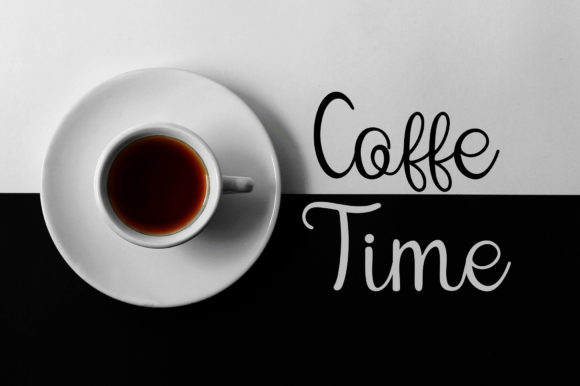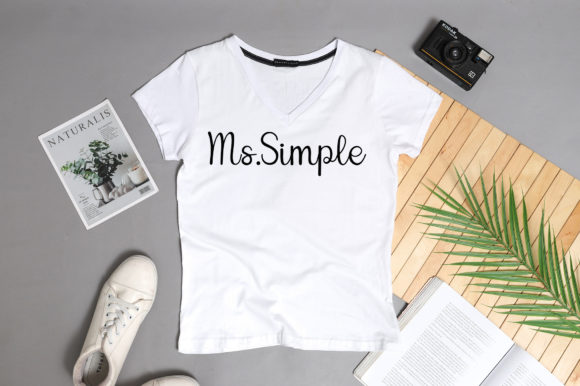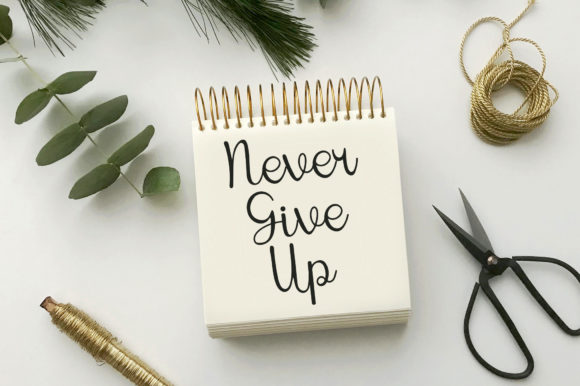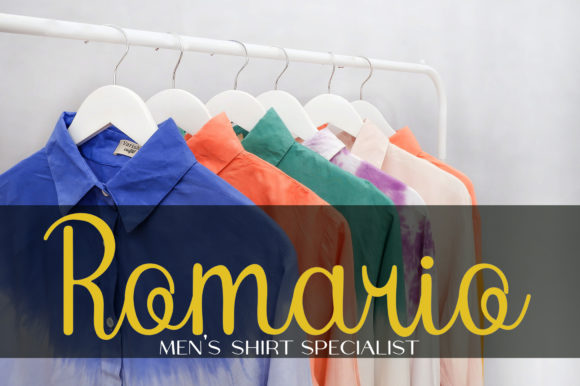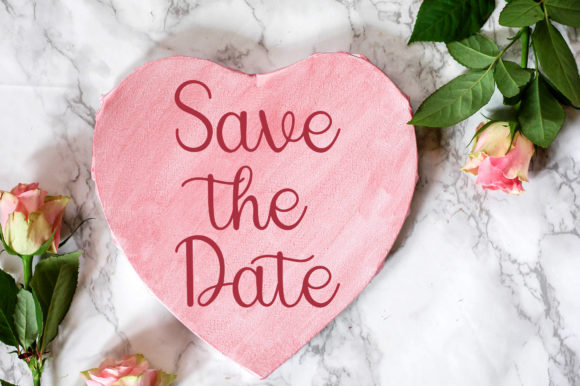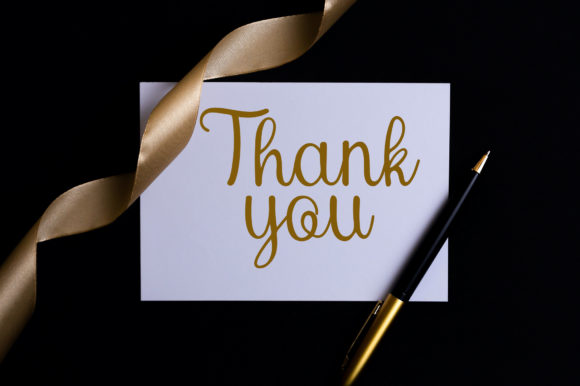
The Perfect Harmony of Letters: Discovering the Ballerina Font
There’s something magical about the first spark of creativity – the moment when a blank page or a blank screen transforms into a world of possibilities. For designers, this moment is what drives us to push boundaries and bring our visions to life. It’s the thrill of selecting the perfect font, the one that captures the essence of our message and transports our audience to a new dimension. And for many, that perfect font is the Ballerina Font – a well-balanced script that exudes elegance and sophistication.
Designed to evoke a sense of quality and refinement, the Ballerina Font is an ideal choice for designers seeking to add a touch of sophistication to their projects. Whether it’s a wedding invitation, a t-shirt design, or a brand identity, this font is sure to make a lasting impression. With its carefully crafted curves and precise letter spacing, the Ballerina Font is a valuable addition to any designer’s toolkit.
Ballerina Font Key Features
- Unique Characteristics: Ballerina Font features a beautiful, elegant design with intricate details and ornate flourishes, making it ideal for formal and high-end applications.
Ballerina Font Review
Overall, I think the Ballerina Font is a sweet and elegant addition to any design project. ✨ The subtle curves and soft edges make it perfect for creating a whimsical and feminine atmosphere. ✨ The font is highly versatile, suitable for a wide range of applications, from invitations and greeting cards to digital displays and advertisements.
Here are some of the things that I particularly like about the Ballerina Font:
- Its delicate and refined appearance makes it perfect for projects that require a touch of sophistication and elegance.
- The font is highly readable, even at small sizes, making it suitable for a wide range of use cases.
- It’s a great choice for designers who want to add a touch of playfulness and whimsy to their projects.
- The font may not be suitable for projects that require a bold or edgy look.
- It may be difficult to use the font at very large sizes, as it can become too ornate and overwhelming.
Overall, I think the Ballerina Font is a great choice for designers who want to add a touch of elegance and sophistication to their projects. While it may have some limitations, it’s a versatile and highly readable font that’s perfect for a wide range of applications.
To get the most out of the Ballerina font, use it sparingly and strategically to add a touch of elegance and sophistication to your designs. Pair it with bold or sans-serif fonts to create a visually appealing contrast.
The Ballerina font is commonly used in wedding invitations, baby shower invitations, and other feminine-themed designs. It’s also used in branding and logo design for companies that want to convey a sense of elegance and sophistication.